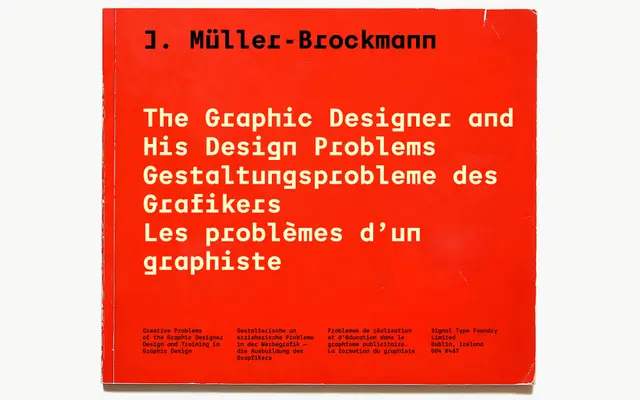
Auger Mono
Signal · Seán Mongey, Max Phillips
Auger Mono specimen from Signal
A fixed-width grotesque with an unusually broad set of stylistic alternates, shifting between plain utility and assertive geometry across six weights.
Designed by Seán Mongey and Max Phillips, Auger Mono draws on Leroy lettering templates, Fortunato Depero's Bolted Book and classic grotesque jobbing faces to produce a monospaced type with a wide expressive range. Stylistic alternates let it move between workaday legibility and aggressively geometric forms without losing the open proportions that keep it readable. Six weights from X-Light to Black extend its usefulness across coding environments, editorial work and display settings alike.
A fixed-width typeface with strong geometric alternates alongside workmanlike grotesque construction; the monospaced category is primary, with geometric sans influences drawn from Leroy lettering templates and Depero.